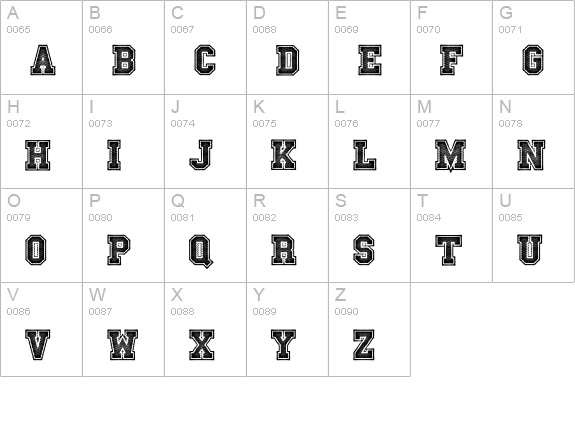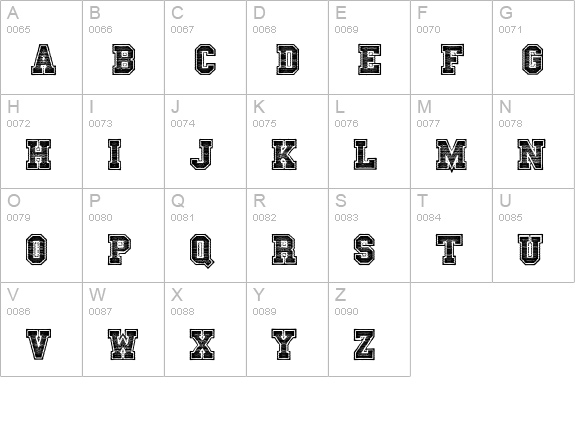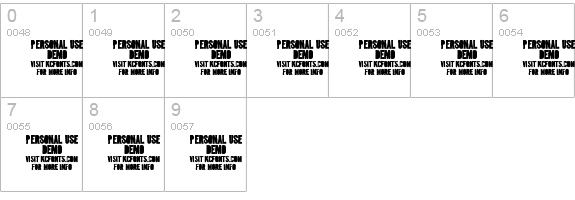
Friday Night Lights Font Details
Introducing Friday Night Lights font, a captivating typeface that effortlessly captures the electrifying energy and excitement of Friday nights. This font is the perfect choice for any design project that aims to convey a sense of thrill, passion, and anticipation. Friday Night Lights font is meticulously crafted with attention to detail, showcasing a seamless blend of bold lines and elegant curves. Its strong and dynamic letterforms are inspired by the adrenaline-fueled atmosphere of sports arenas and the captivating glow of stadium lights. With its versatility and versatility, Friday Night Lights font is suitable for a wide range of applications. Whether you're designing sports-related graphics, event posters, branding materials, or even creating eye-catching social media posts, this font will undoubtedly make an impactful statement. What's even more exciting is that Friday Night Lights font is available for free download at FontsMarket.com. Yes, you read that right – this remarkable font can be yours without spending a penny. With just a few clicks, you can add this stunning typeface to your design arsenal and elevate your creative projects to new heights. It's time to embrace the energy of Friday nights and let it shine through your designs. Download Friday Night Lights font now and experience the thrill of typography that is both captivating and freely accessible.